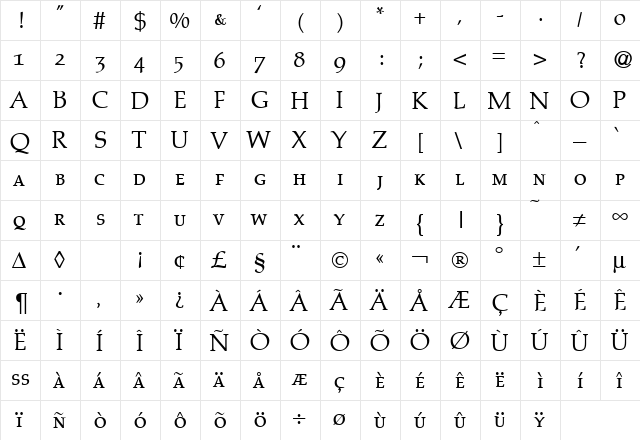
PalazzoOriginalSmc Regular
Design Context for PalazzoOriginalSmc Typeface
PalazzoOriginalSmc is a composed and adaptable typeface that performs quietly and consistently across a wide range of design contexts.